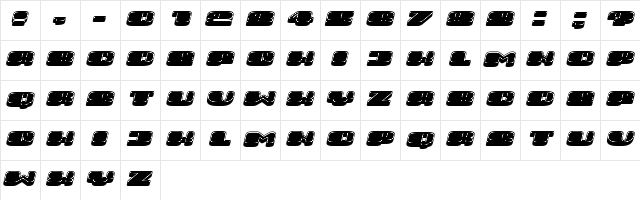
Comeback Filled Italic
Design Context for Comeback Filled Typeface
Comeback Filled is a composed and adaptable typeface that performs quietly and consistently across a wide range of design contexts. Its italic angle brings a sense of urgency and motion to the letterforms.
Pro Tip: Use Comeback Filled for emphasis, pull quotes, and subheadings where its slanted energy can add rhythm to the layout.